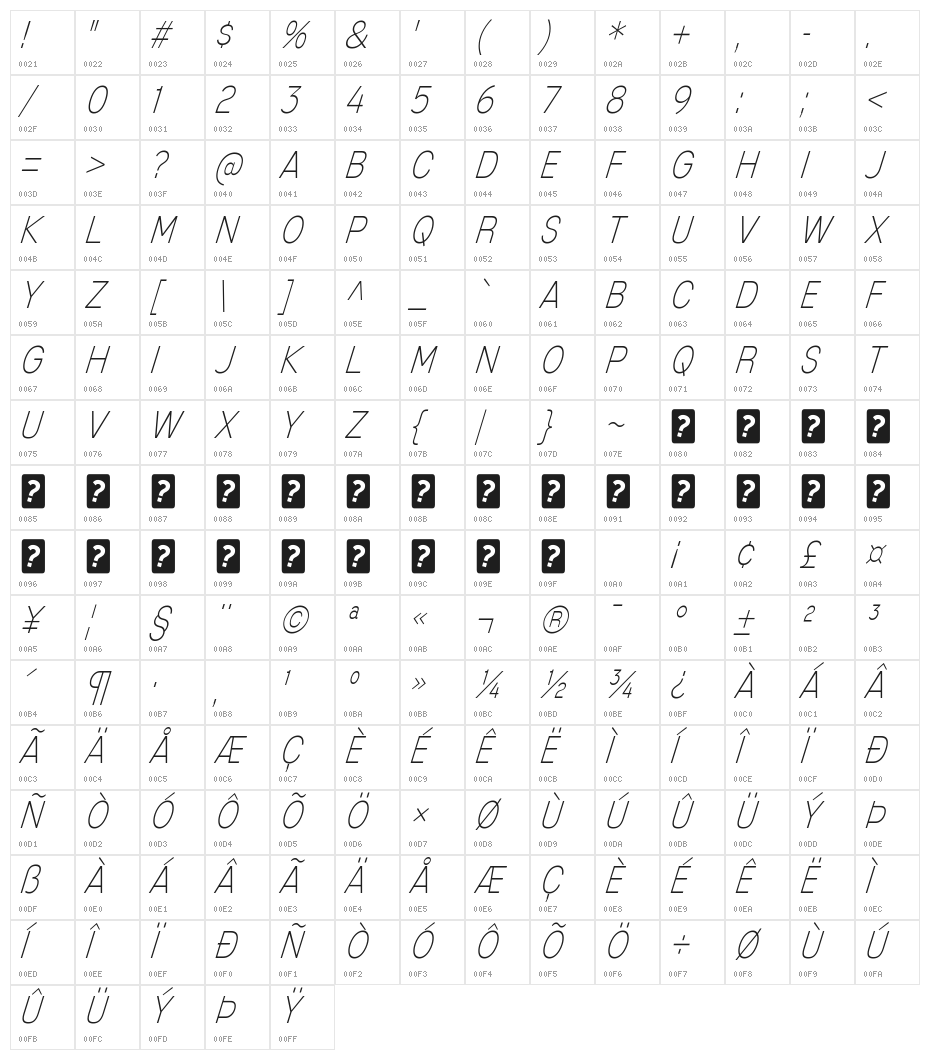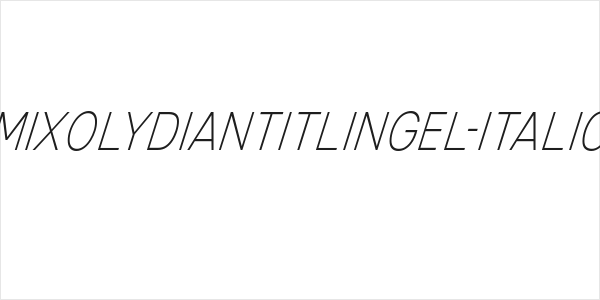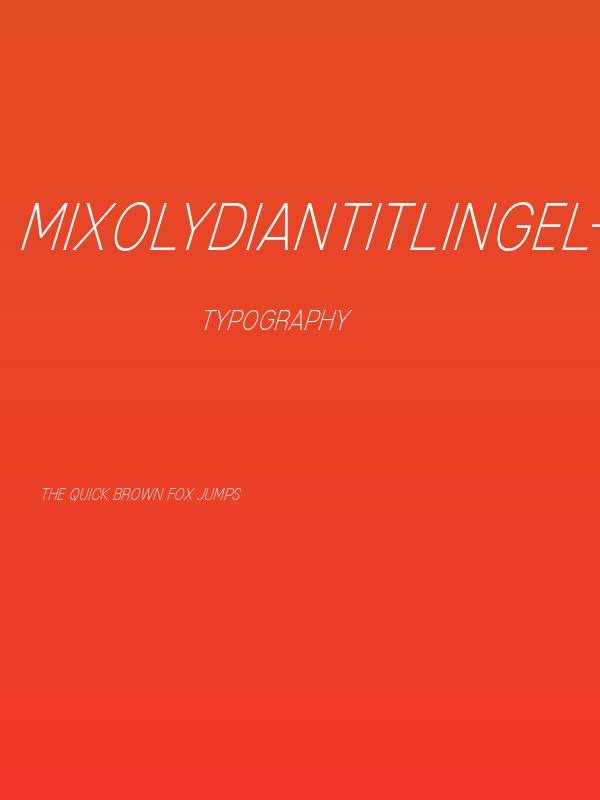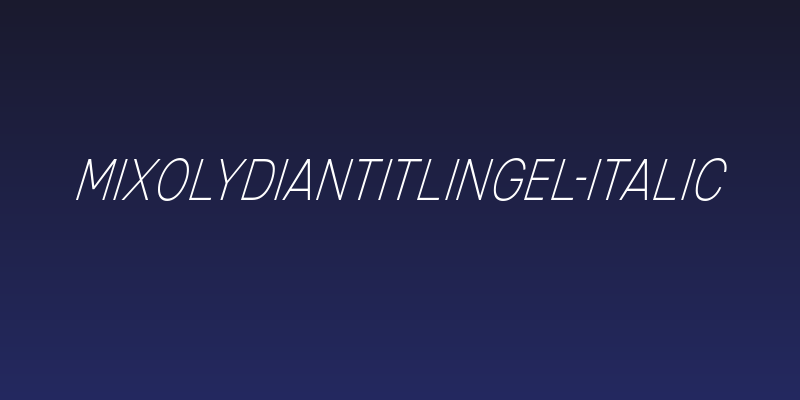
MixolydianTitlingEl-Italic Font
MixolydianTitlingEl-Italic Description
This font features a sleek, italicized design with a modern and elegant appeal. The characters are elongated and slightly slanted, giving a sense of motion and fluidity. The strokes are consistent in thickness, providing a uniform appearance across all characters. The uppercase and lowercase letters maintain a harmonious balance, while the numerals and special characters are designed to complement the overall style. The font's clean lines and sophisticated look make it suitable for a variety of design projects.
| Use Case | Headlines, Logos, Editorial design |
| Proposed Projects | Ideal for branding, editorial design, fashion magazines, and luxury product packaging. |